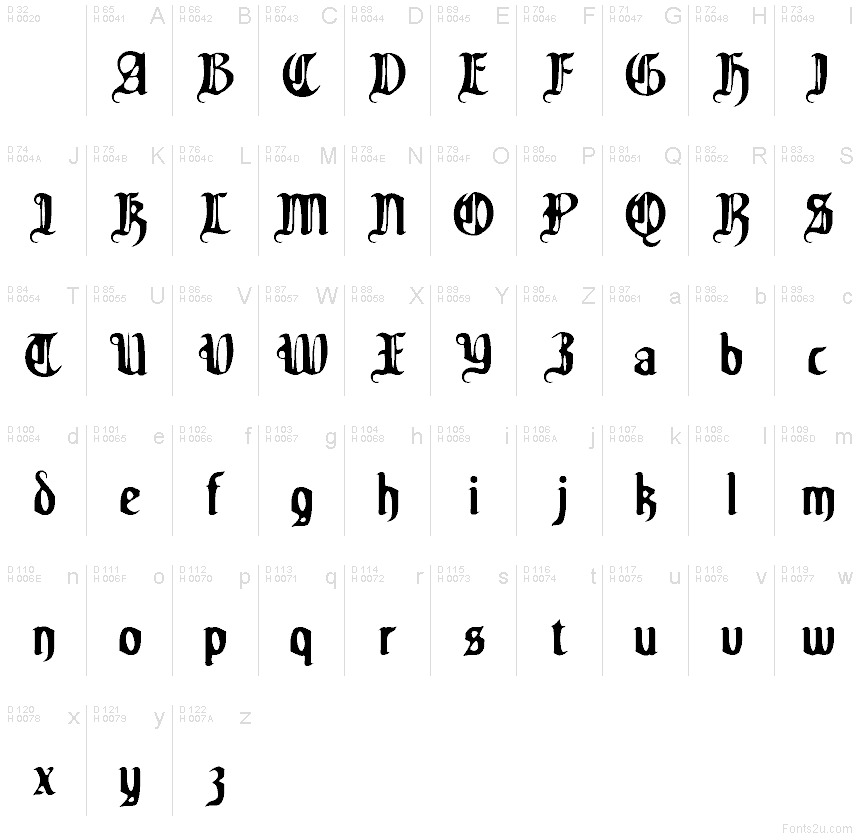
CSAitherDrawn-Regular Demo
CS Aither Drawn font by Craft Supply Co. is a free gothic font with medieval style inspired by historical influences. Decorative elements accompany each letter of this typeface resulting in an overall fancy appearance. Thin strokes and extravagant details take the lead and make CS Aither Drawn extremely suitable for creative projects that aim for attracting attention.
Use it in branding, packaging, social media posts, stories highlights covers, book covers, posters, flyers/leaflets (pizza restaurants etc), restaurants menus cover pages (ie: cocktails menu), postcards, title sequences; and incorporate it into page headers and sub-headers of websites with dark or patterned plain background colors.